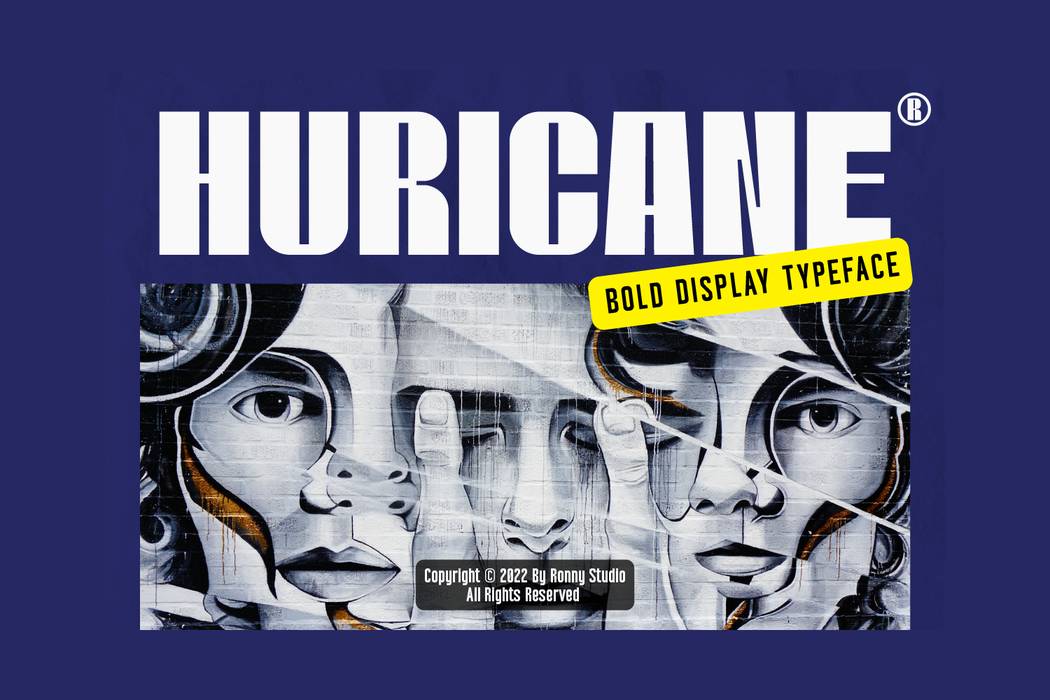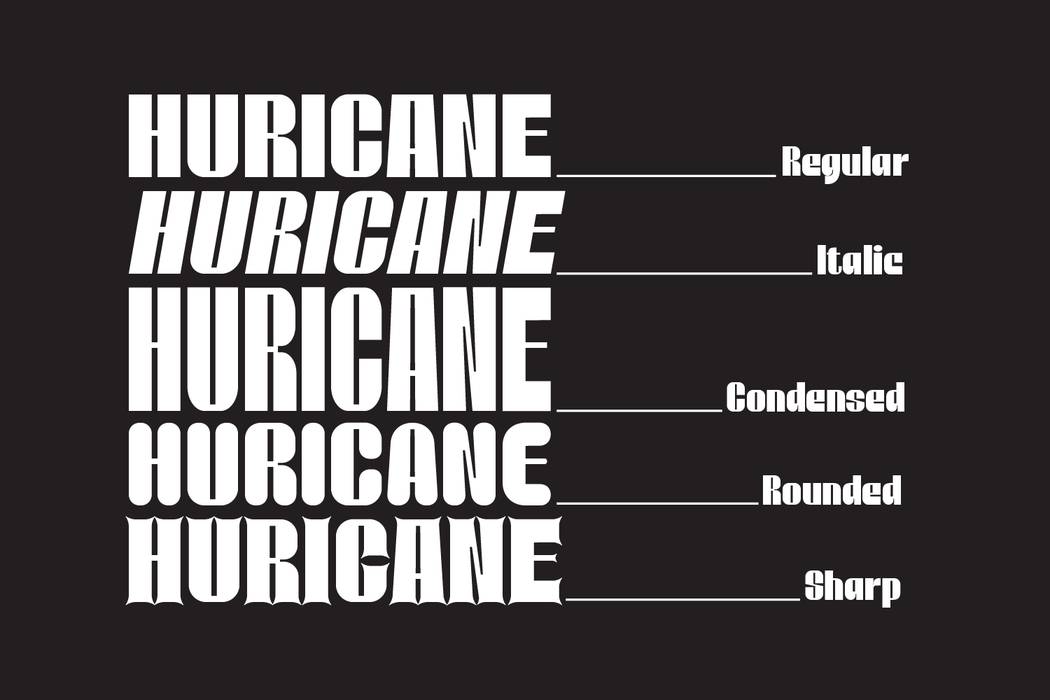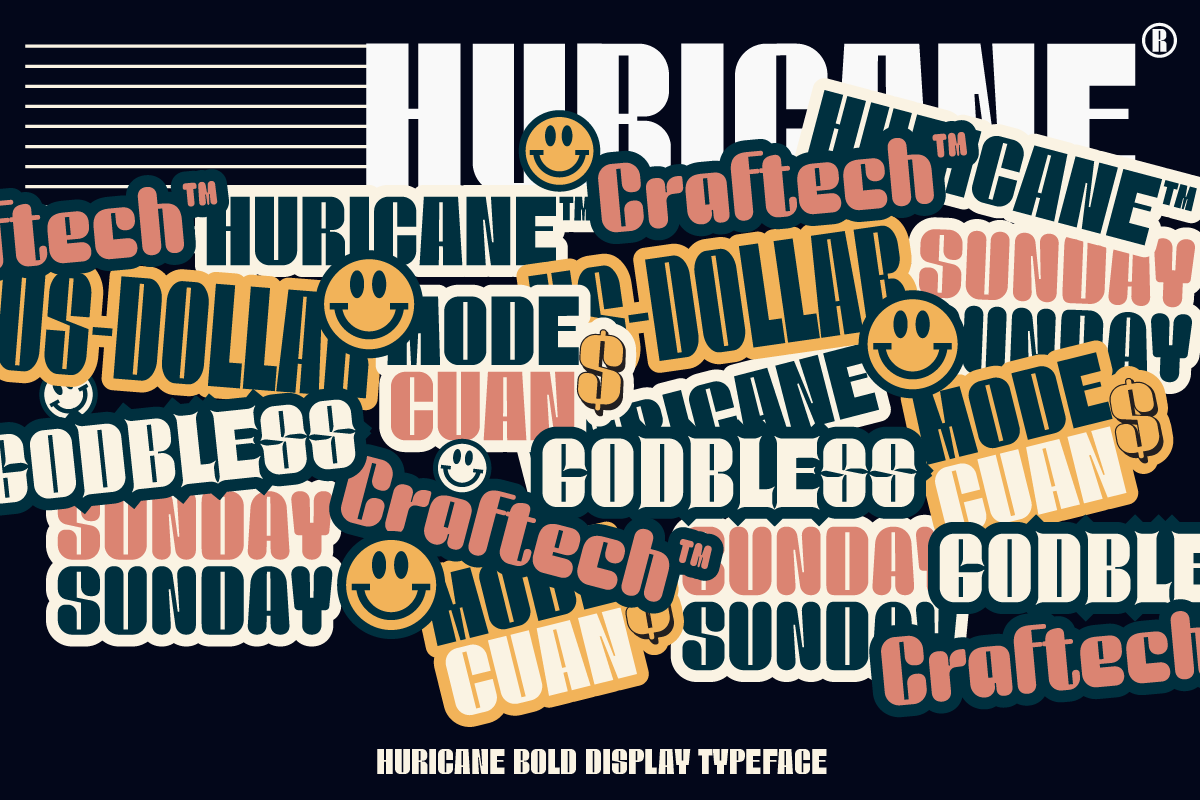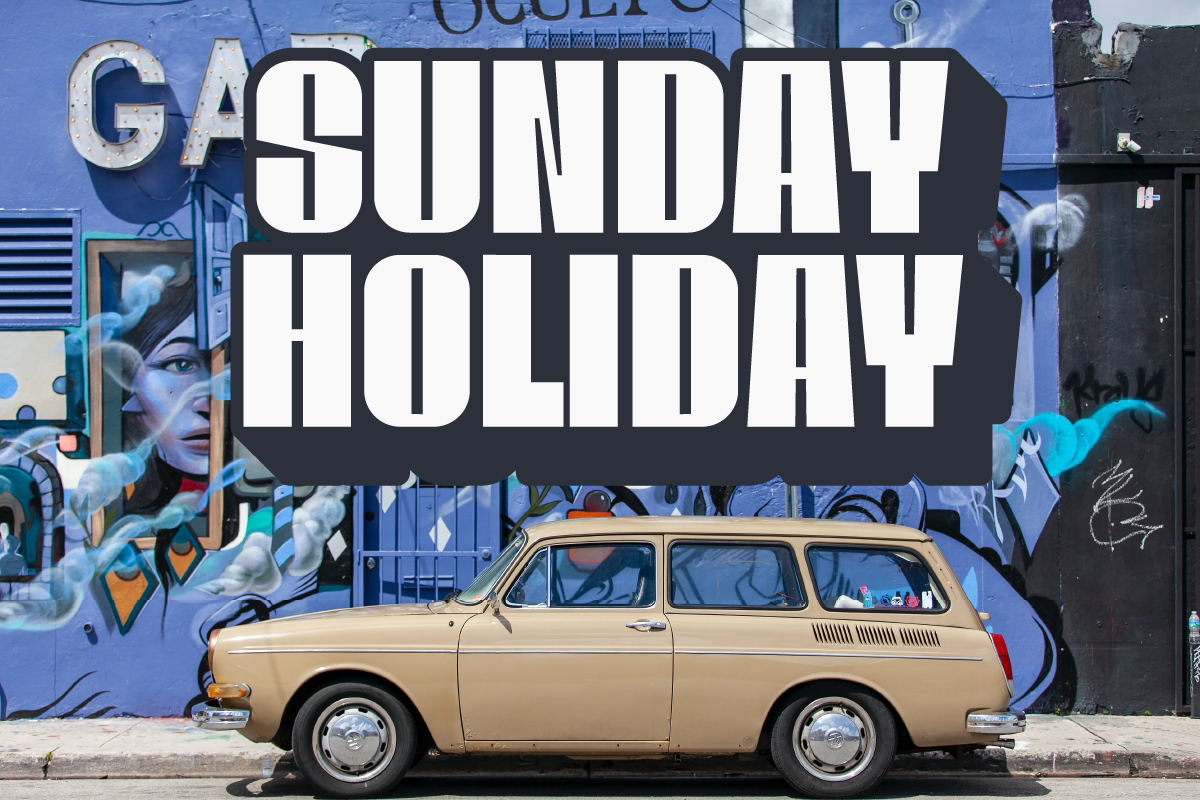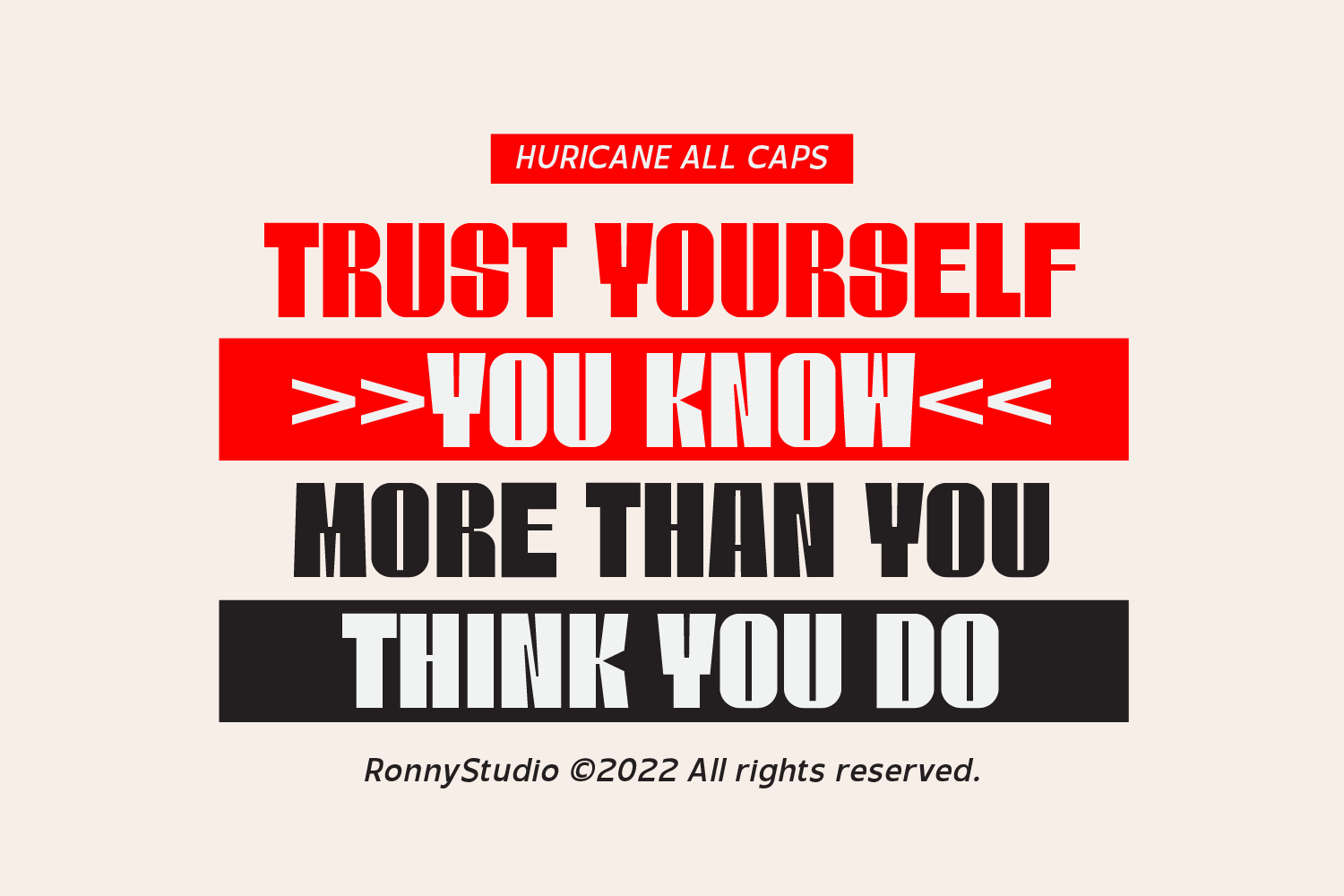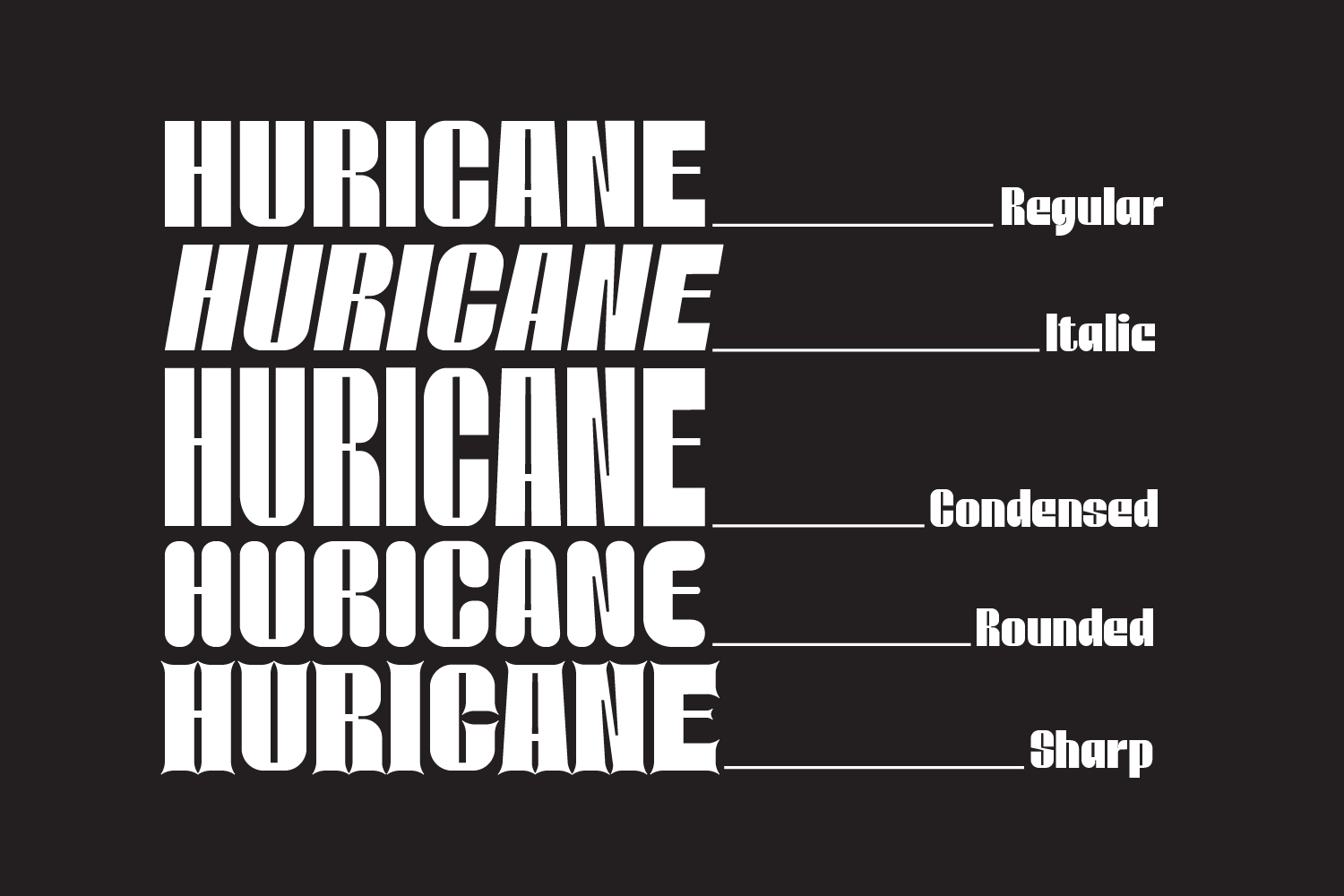
Huricane Font
Huricane Font is a bold and dashing cubic mechanical display font with a futuristic look. It’s a lot of fun with a bold personality. The font looks modern and elegant and it’s perfect when applied to your logo, brand, title, packaging, or whatever your creativity brings. This free typeface was designed by a talented Ronny Studio. If you like it don’t forget to check out the full version.